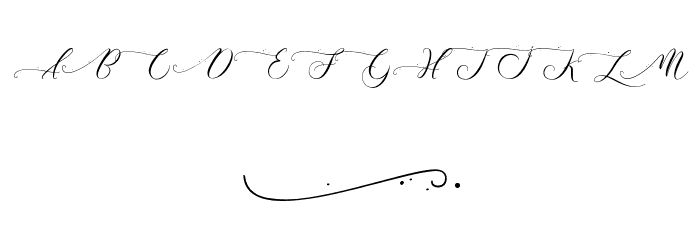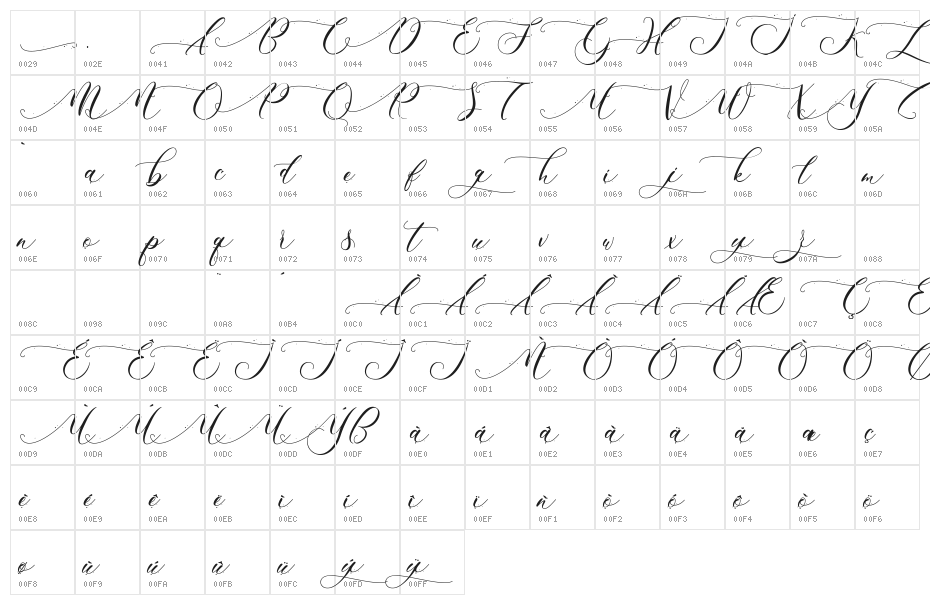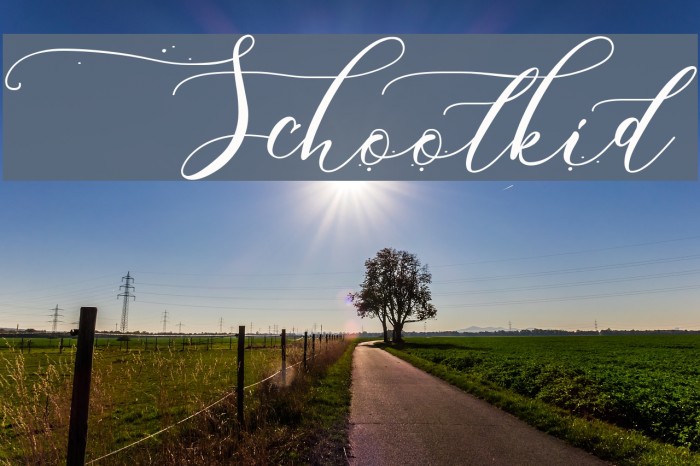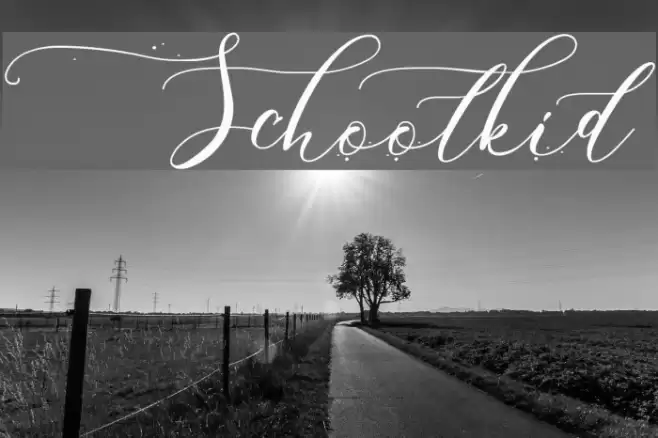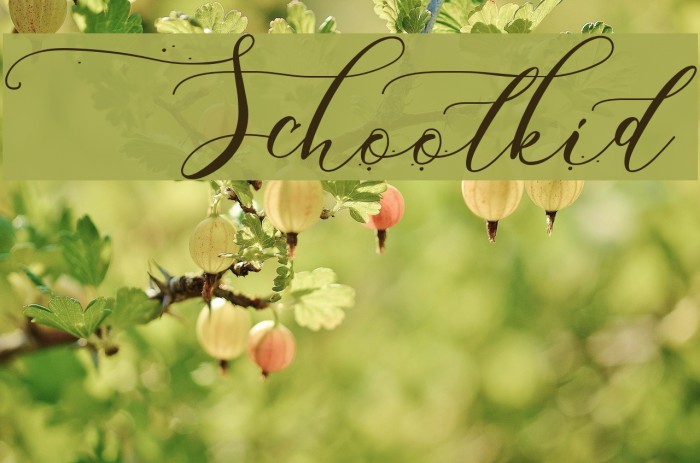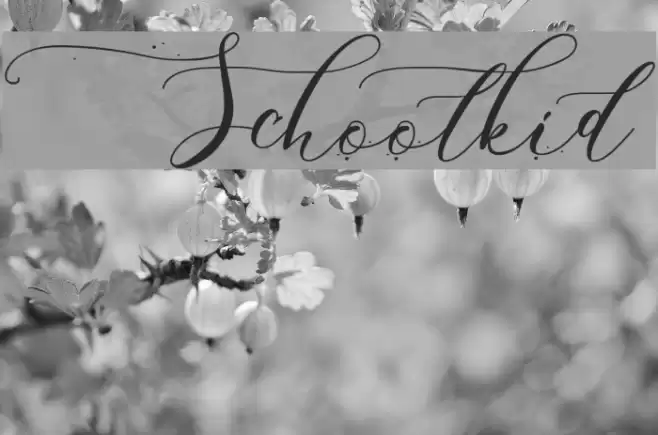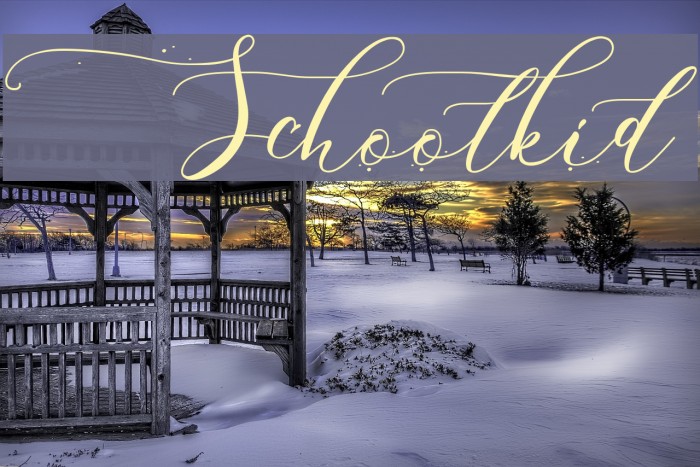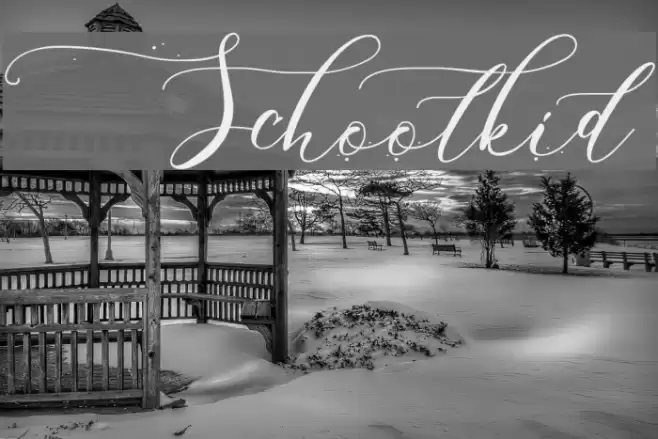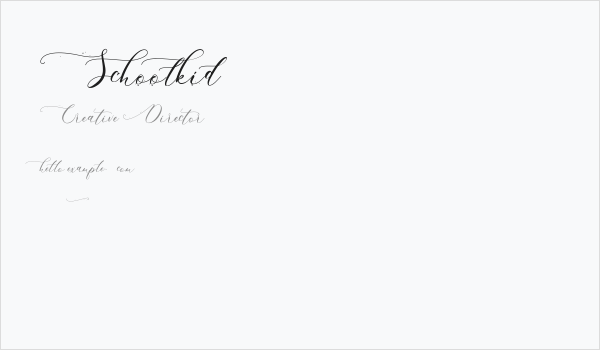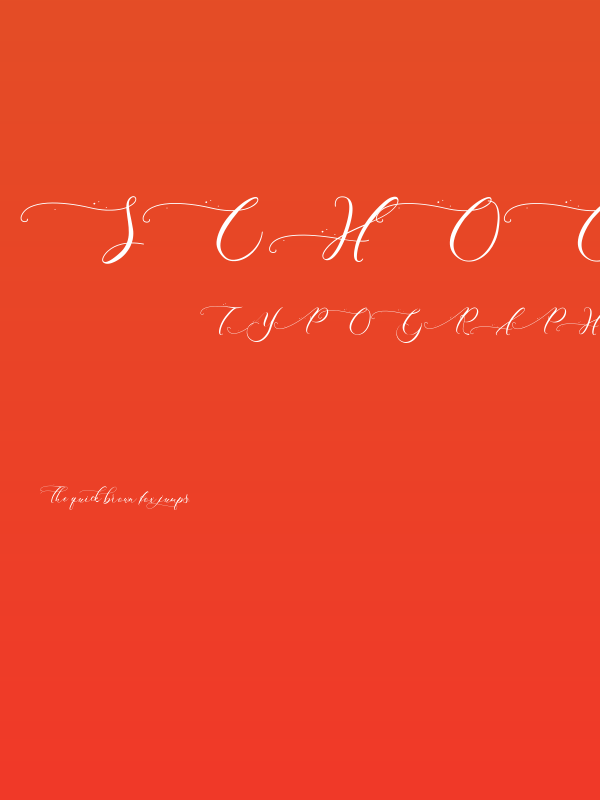
Schoolkid Font
Schoolkid Description
This font exudes elegance and sophistication with its flowing, cursive style. Each letter is intricately designed with delicate flourishes and swashes that give it a graceful, handwritten appearance. The uppercase letters are particularly ornate, featuring extended loops and curves that add a touch of grandeur. The lowercase letters maintain a consistent style, with smooth, continuous strokes that enhance readability despite the decorative elements. The overall design is reminiscent of classic calligraphy, making it suitable for projects that require a touch of refinement and artistry.
| Proposed Projects | Ideal for wedding invitations, elegant branding, luxury packaging, and artistic posters. |